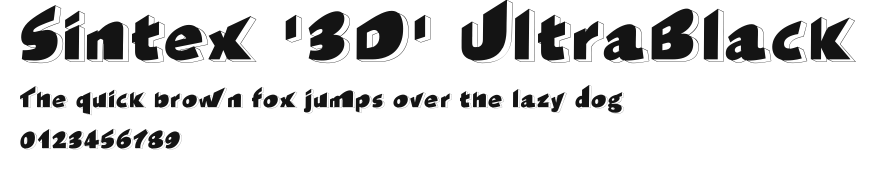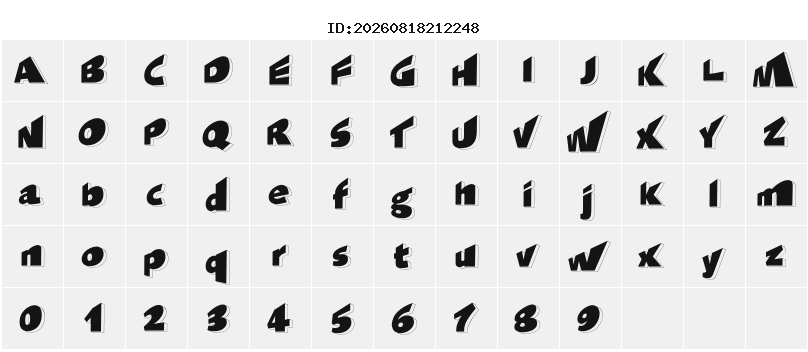
• Font Name: Sintex '3D' UltraBlack
• Manufacturer: HT
About Sintex '3D' UltraBlack.ttf
Sintex '3D' UltraBlack.ttf is a modern, elegant sans-serif font designed for ultimate readability and visual harmony. Perfect for branding, headlines, web design, and print materials.